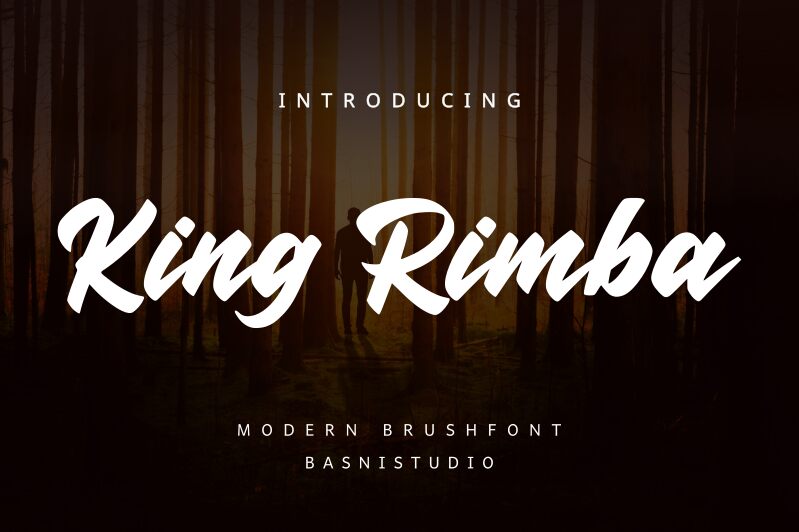
King Rimba font by the talented designer Basni.std is an engaging free brush font that captivates with its impactful presentation. Its dynamic and energetic design embodies a modern style with each character carrying expressive, brush-like textures. The font merges contemporary nuances with artistic flair to form letters that are suitable for creatives in search of bold personality. King Rimba is an original tool inspired by natural beauty.
Whether you are looking to add brush-inspired typography to a magazine or book cover, a poster or flyer design, a website design or an art blog, or social media posts and banners, this font will deliver elegance to the viewers. It can also be used for branding purposes that include logos and label designs.